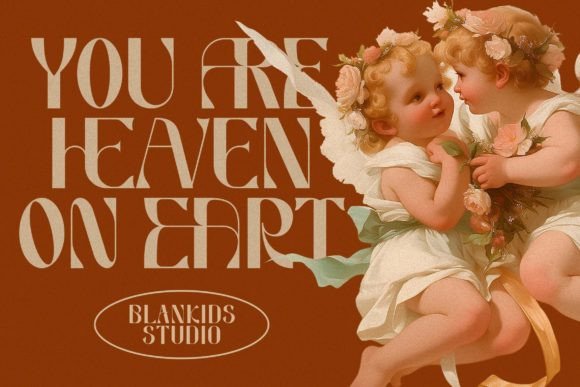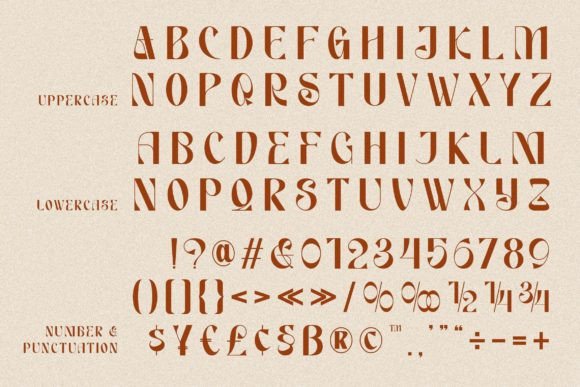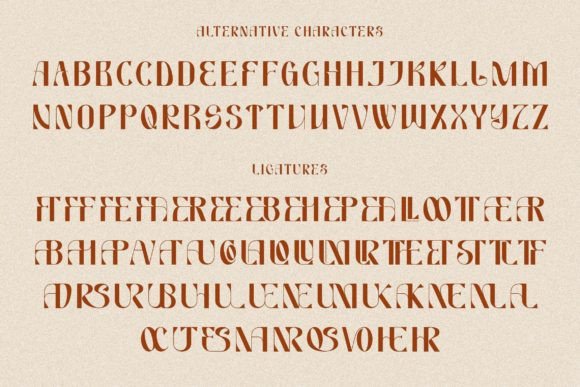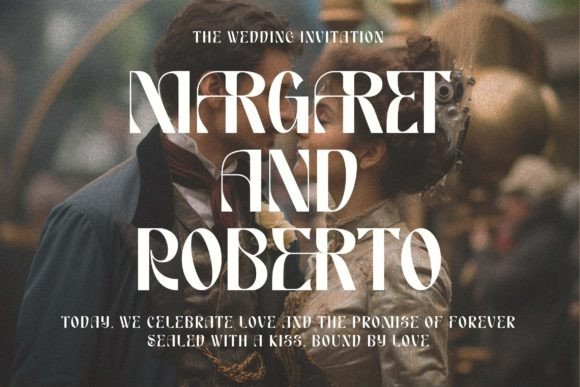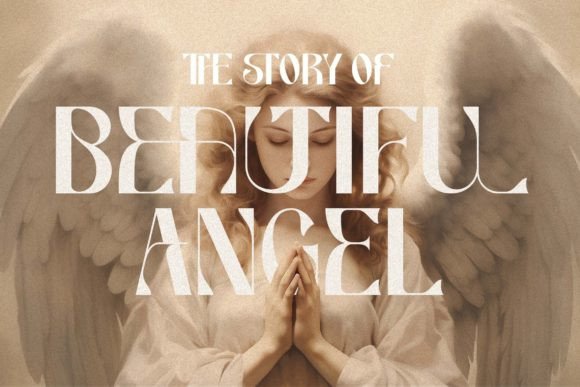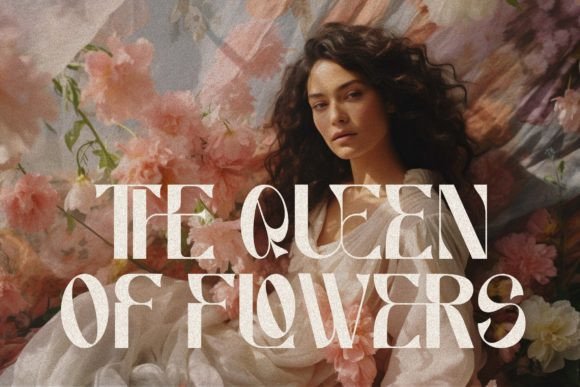
Hello, awesome people! Are you on the lookout for a font that exudes elegance and sophistication? Look no further than Clamerine, a classic stylish font designed by Blankids Studio. This beautiful font is perfect for professional projects that require a touch of refinement, such as logotypes, watermarks, posters, branding, promotions, and product packaging.
What Makes Clamerine Font Stand Out?
Clamerine font boasts a classic style design that is sure to elevate your design projects. Every letter, from uppercase to lowercase, has been carefully crafted to convey a sense of timelessness and sophistication. The regular style of this font makes it versatile and easy to use in a variety of contexts.
Key Features of Clamerine Font
- Classic Stylish Design: Clamerine font features a classic style design that is perfect for projects that require a touch of elegance.
- Full Set of Uppercase and Lowercase Letters: This font includes a complete set of uppercase and lowercase letters, making it easy to use for a wide range of design projects.
- Numerals and Punctuation: Clamerine font also includes numerals and punctuation, ensuring that you have everything you need to create professional-looking designs.
- Regular Style: The regular style of this font makes it easy to use and versatile.
How to Use Clamerine Font in Your Design Projects
Clamerine font is perfect for a wide range of design projects, including:
- Logotypes: Create a lasting impression with a logotype that exudes elegance and sophistication.
- Watermarks: Add a touch of refinement to your watermarks with Clamerine font.
- Posters: Create eye-catching posters that showcase your brand’s personality.
- Branding: Establish your brand’s identity with a font that conveys professionalism and sophistication.
- Promotions: Create promotional materials that stand out from the crowd.
- Product Packaging: Elevate your product packaging with a font that exudes elegance and refinement.
Tips for Getting the Most Out of Clamerine Font
To get the most out of Clamerine font, here are a few tips:
- Experiment with Different Sizes: Try out different font sizes to see how Clamerine font looks in different contexts.
- Play with Colors: Experiment with different colors to see how they interact with Clamerine font.
- Use it in Combination with Other Fonts: Try pairing Clamerine font with other fonts to create a unique look.